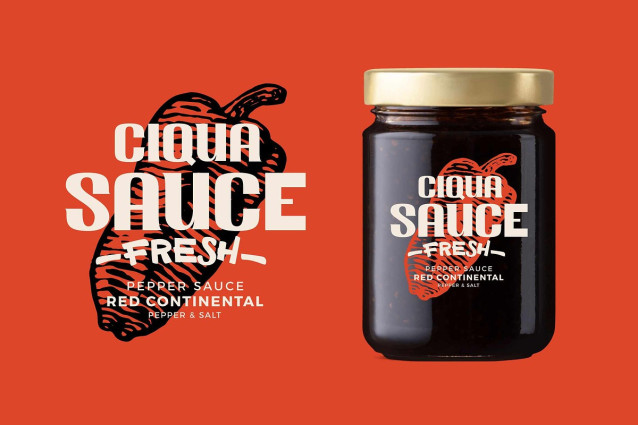
Silk Goned Font
Silk Goned Font, a bold and charismatic display font that effortlessly blends retro charm with a modern edge, featuring chunky letterforms, distinctive serifs, and a perfect balance between sharp angles and soft, flowing curves.
The font includes unique stylistic alternates and ligatures, allowing you to switch up the look and feel for different design contexts. From bold signage and restaurant branding to label design and posters.
The typeface works beautifully across food branding, craft products, retro packaging, lifestyle design, and creative digital content.